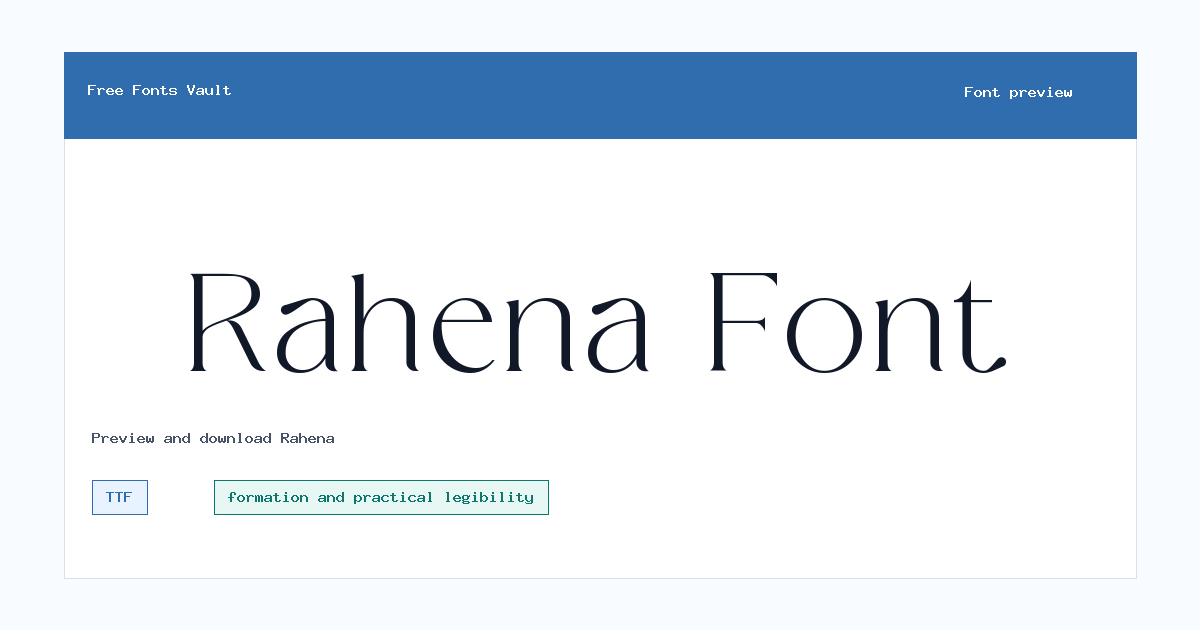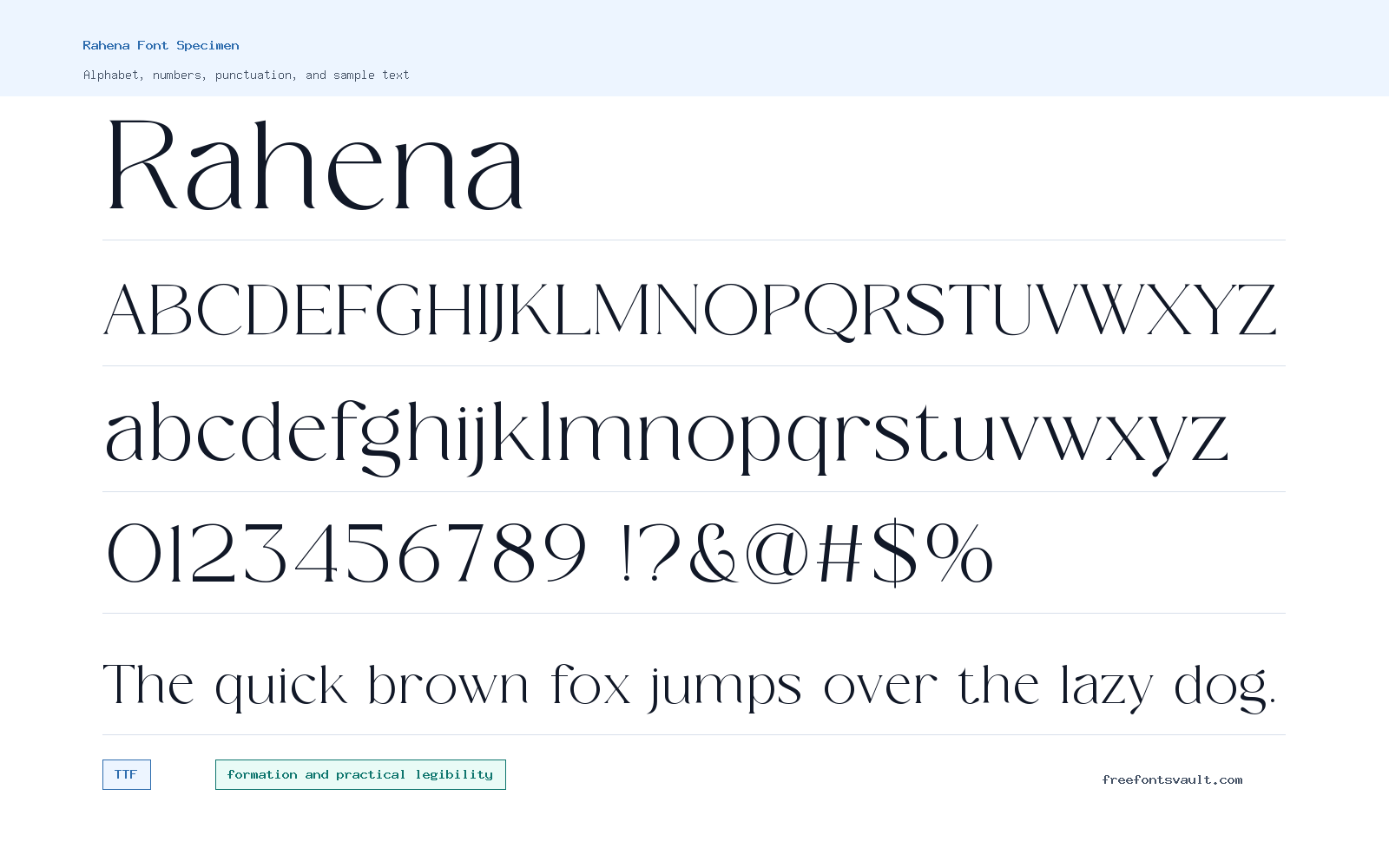
Rahena
Rahena font.
Rahena is a modern serif font with a refined, high-contrast look suited to short, polished text. It works best when the letters have room to show their thin strokes and shaped terminals.
About Rahena Font
Rahena has the feel of a display serif rather than a body-text font. Its contrast between thick and thin strokes gives headlines, names, and short brand-style wording a graceful appearance. Third-party listings describe it as modern and elegant, and one review notes distinctive capital letters and alternate-style character details.
Use Rahena for text that needs a stylish serif presence without asking the font to carry long paragraphs. It can suit wedding stationery, logo drafts, magazine-style headings, social graphics, beauty or lifestyle layouts, and website hero text. For menus, captions, descriptions, and other small information, pair it with a clean low-contrast sans serif so the design stays readable.
Rahena is strongest when used with generous space: wedding stationery, beauty marks, boutique headings, magazine-style titles, and short quotes are better fits than long paragraphs. If your design needs readable supporting text, keep Rahena for the main display words and use a low-contrast sans or text serif beside it.
- Modern high-contrast serif style for display use
- Best suited to short headings, names, quotes, and decorative text
- Includes basic Latin characters and accented characters in third-party character previews
- Wedding invitations and stationery headings
- Logo concepts and elegant wordmarks
- Beauty, fashion, and lifestyle graphics
- Magazine-style titles or website hero text
- Social media quotes and short promotional layouts
Test Rahena at the exact size you plan to use. Its thin strokes may lose clarity at small sizes, so keep it for larger display text and pair it with a simpler font for practical reading. Also preview accented characters, punctuation, and numerals if they appear in your final copy, because decorative serifs can vary more than neutral text fonts.
What type of font is Rahena?
Rahena is a modern serif display font with a refined, high-contrast look.
Can I use Rahena for long paragraphs?
Rahena is better for short display text. For paragraphs or small text, use a simpler companion font for better readability.